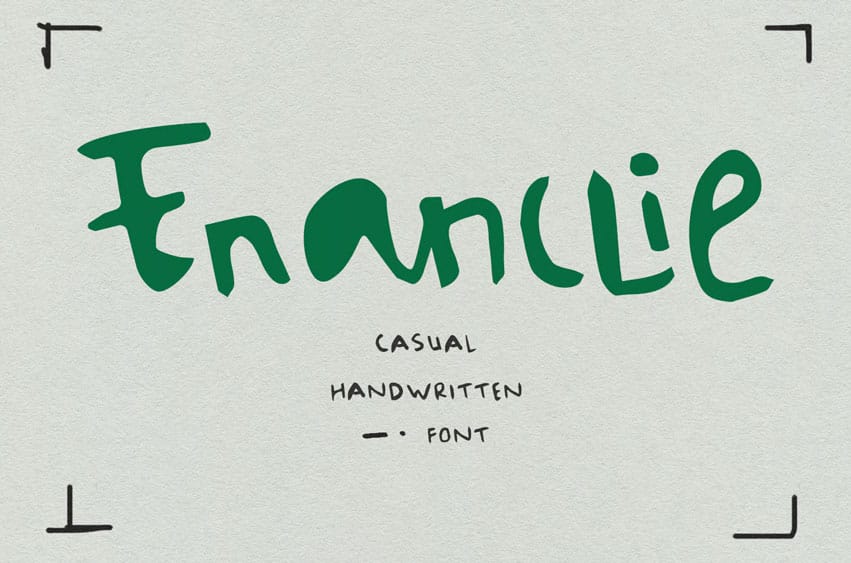
Enanclie Font is an authentic, handmade font that features bold strokes and playful characters, including ligatures and alternate styles to enhance your creative projects. This font supports over 100 languages, making it versatile for various applications. It is ideal for logo design, social media content, movie titles, book titles, and both short and long text. Enanclie Font pairs well with sans-serif or serif fonts, making it a great choice for secondary text as well.
Enanclie Font Preview